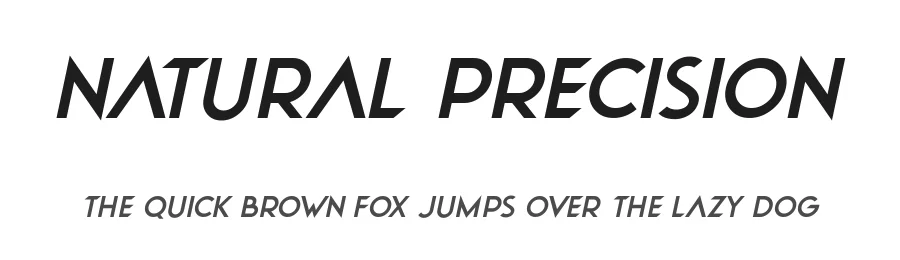
About Ubiquitous Font
Ubiquitous Specifications
Ubiquitous Font is a versatile sans-serif font that works for both headings and body text. Pair it with a contrasting serif or slab serif font to add visual interest and a clear distinction between titles and body copy.